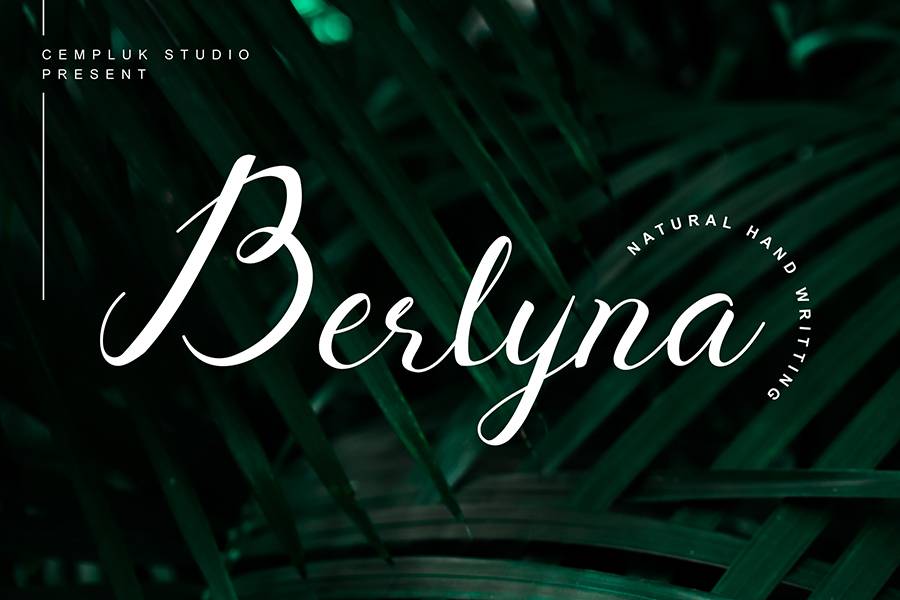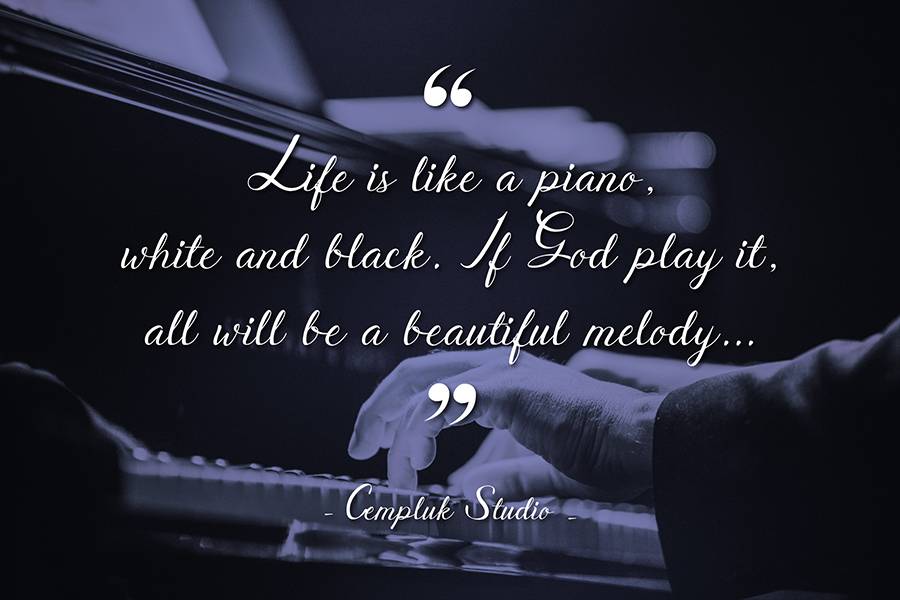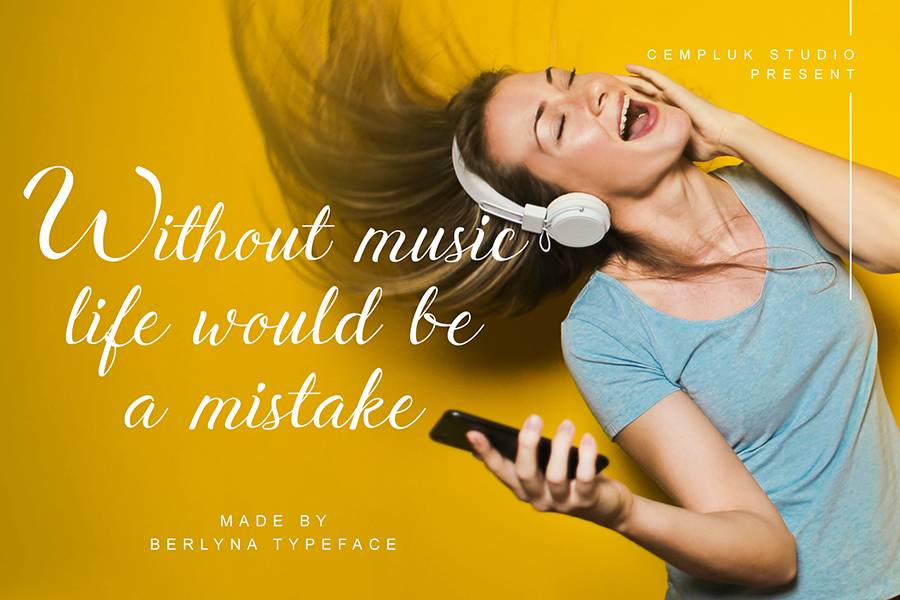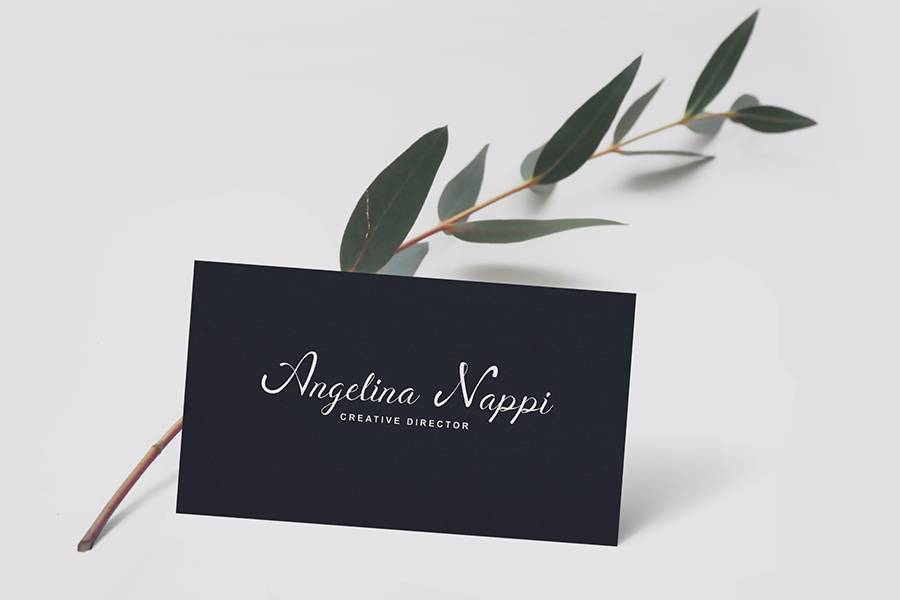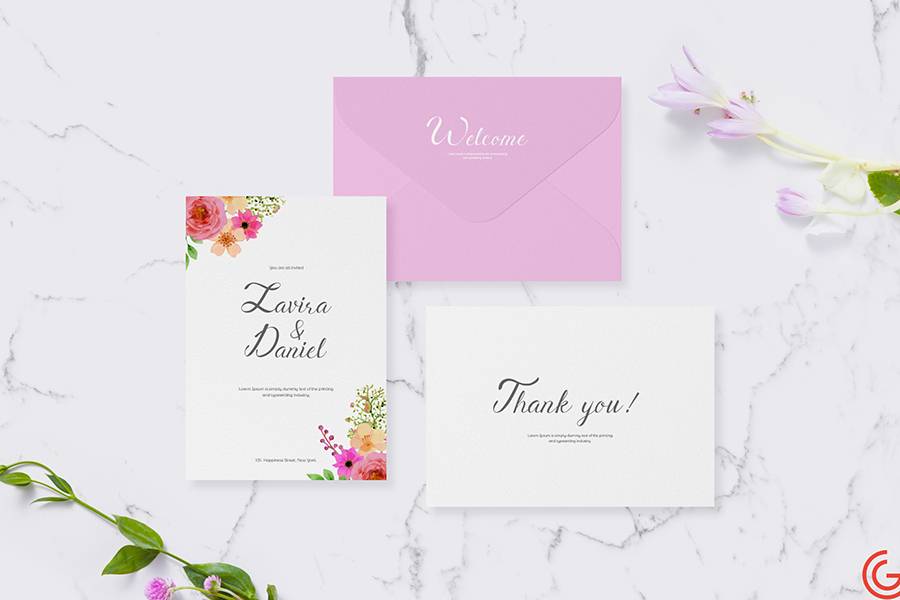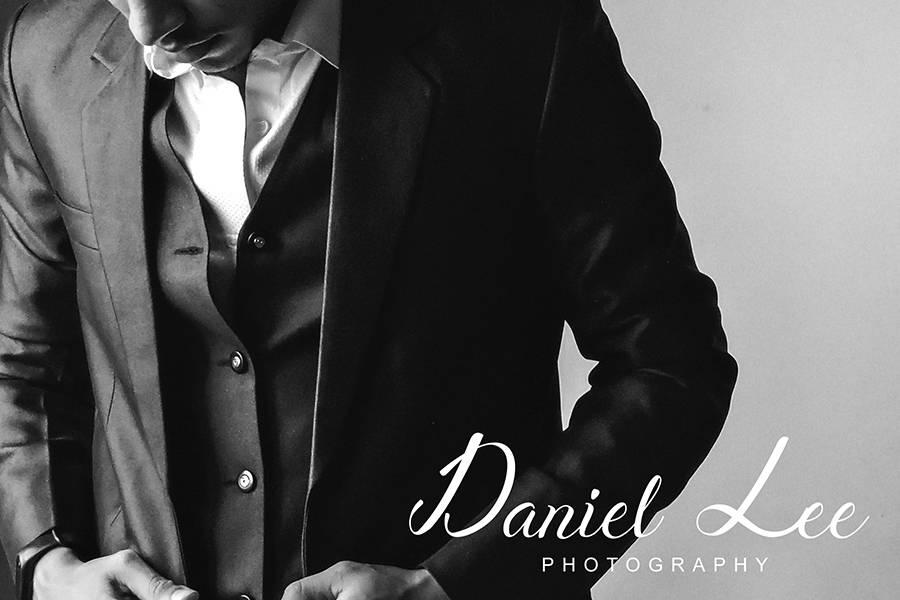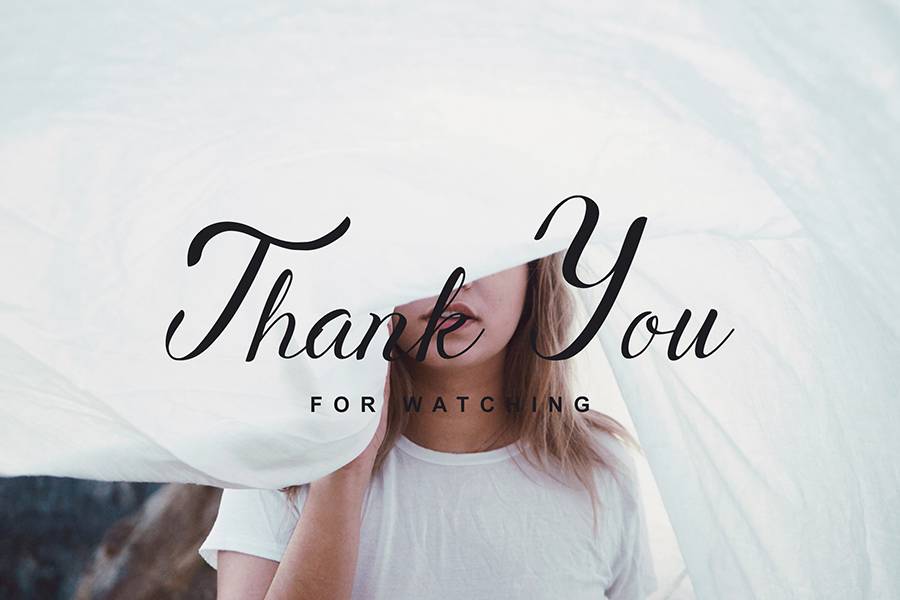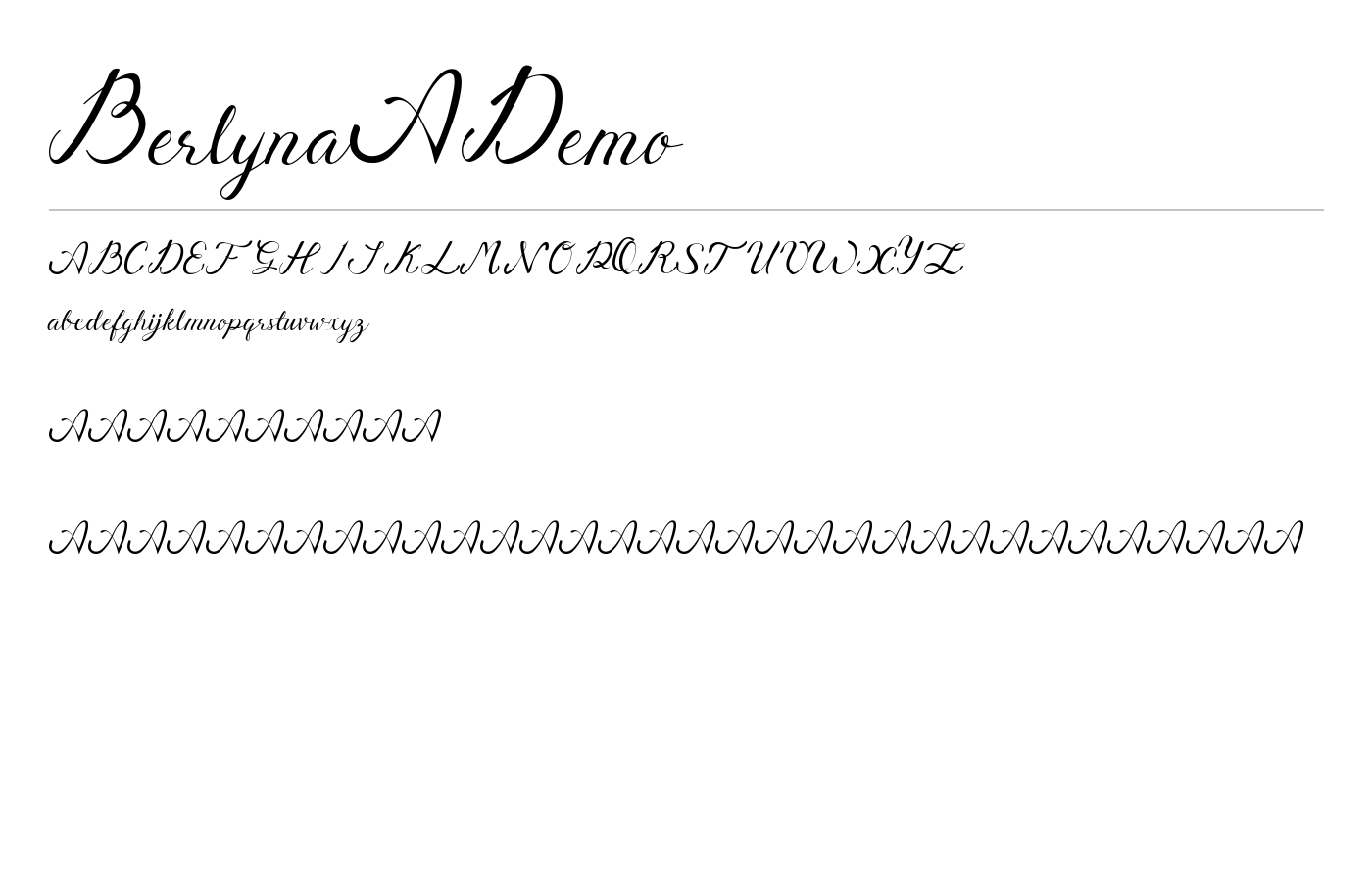
Berlyna Script is an elegant, delicate script font featuring graceful, flowing letterforms with a refined, calligraphic style. Its slender strokes and consistent low contrast give it a light, airy feel, making it perfect for sophisticated branding, wedding invitations, and stylish editorial use where a touch of elegance and femininity is desired. This font shines in headlines and decorative text, adding a classic yet modern charm to any design.
Berlyna Script Font Demo
About Berlyna Script Font Demo
| Font family | Berlyna Script Font Demo |
| Designer | Cempluk Studio 2019 |